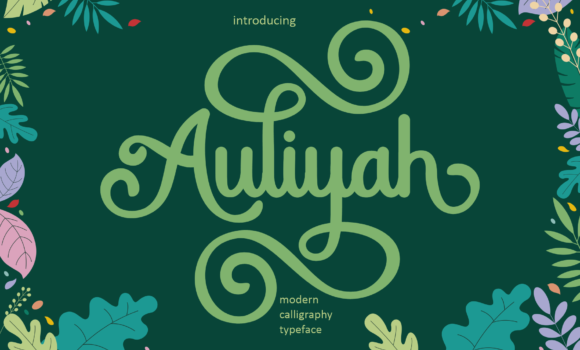
auliyah
Auliyah Font – Free Download Introduction to Auliyah Font Auliyah is a chic, well balanced and delicate script font. 📸 Preview Gallery 5 images 📌 Product Name Auliyah Font 👤 Author RT Studio 📂 Category Explore ⬇️ Download Auliyah Font